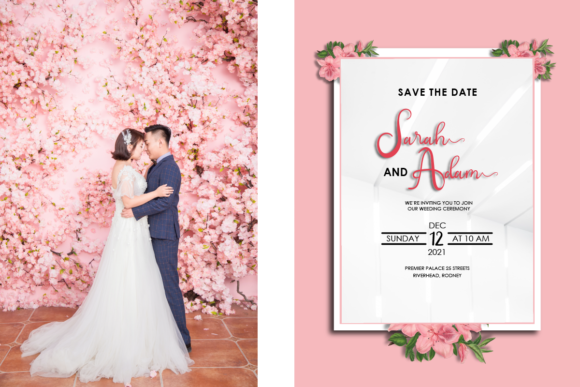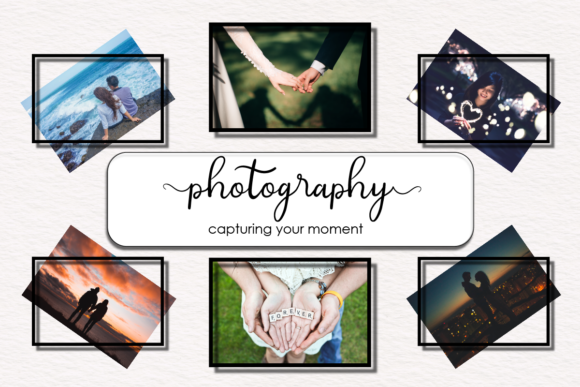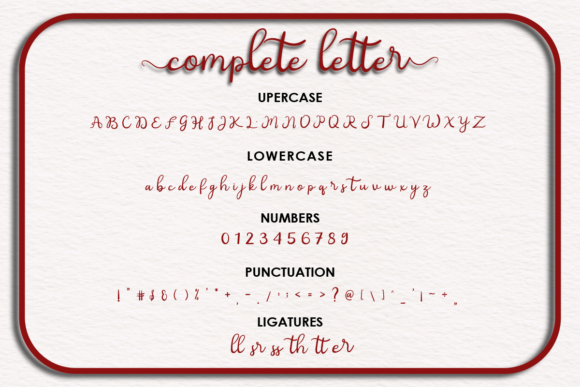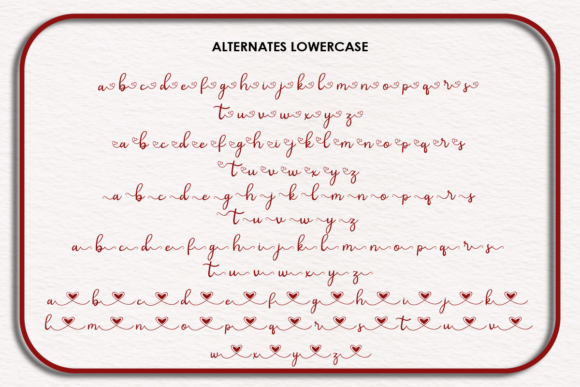
Living Love Font
About Living Love Font
Living Love is a delicate handwritten font with a heart and striped tail. It is PUA encoded which means you can access all of the glyphs and swashes with ease! Have fun with this beautiful font and explore its endless variations.